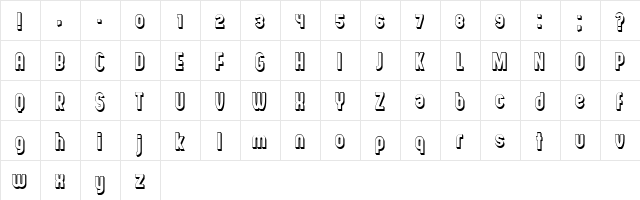
Mundo Hollow Regular
Design Context for Mundo Hollow Typeface
Mundo Hollow is a composed and adaptable typeface that performs quietly and consistently across a wide range of design contexts.